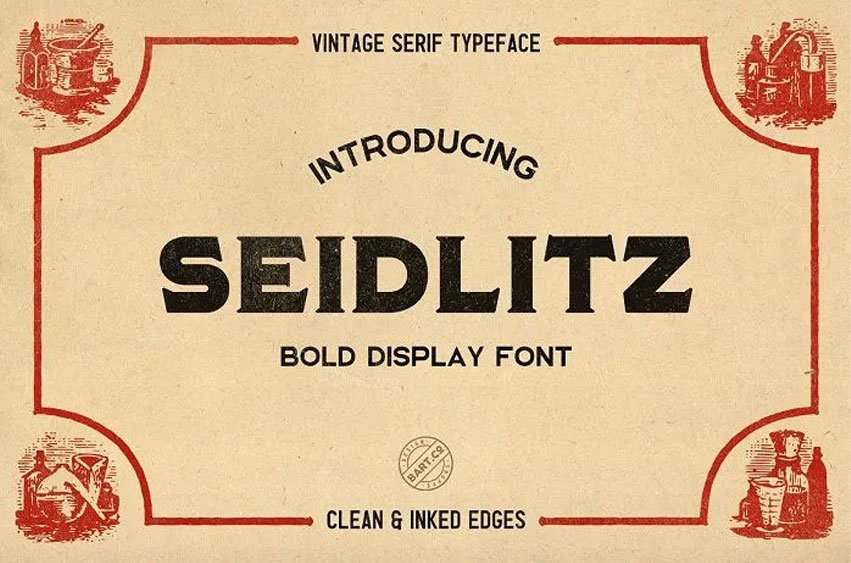
Seidlitz Typeface Font
. Seidlitz is a daring vintage font that was inspired by the retro apothecary typography. Typeface is a good choice for vintage logos, labels, posters and etc.